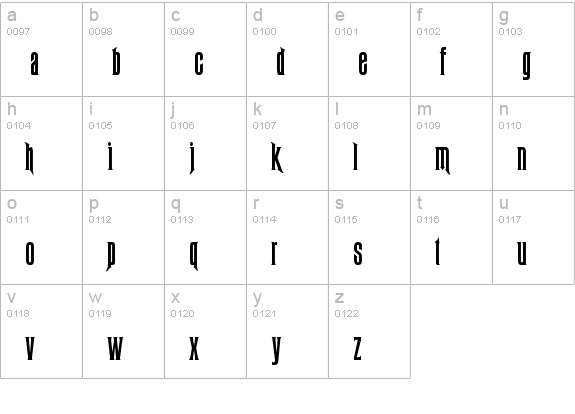
Ravenscroft Font Details
Ravenscroft font is a visually stunning typeface that effortlessly combines elegance and sophistication. With its sleek and modern design, this font is perfect for adding a touch of class to any project. Whether you're designing a logo, creating a professional presentation, or crafting a stylish website, Ravenscroft font is sure to impress. What sets Ravenscroft font apart is not only its impeccable craftsmanship but also its versatility. This font can be used for both headings and body text, making it a great choice for various design purposes. Its clean lines and perfectly balanced proportions ensure legibility, even at small sizes. But what truly makes Ravenscroft font stand out is the fact that it is free. That's right, you can freely download this incredible font at FontsMarket.com. Now, you don't have to compromise on quality or break the bank to access a high-quality typeface. Ravenscroft font offers a rare combination of beauty and affordability, making it a must-have for designers, professionals, and enthusiasts alike. So why wait? Head over to FontsMarket.com and get your hands on Ravenscroft font today. Elevate your designs with this stunning typeface and experience the power of free creativity.